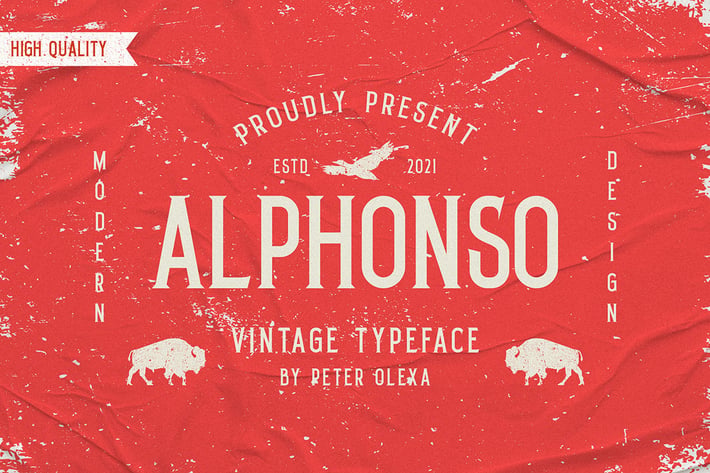
Unique retro, modern & condensed serif font. Comes with multilingual support & ligatures - great for your new logo or branding project.
- Multilingual support
- Great for retro or vintage style branding projects